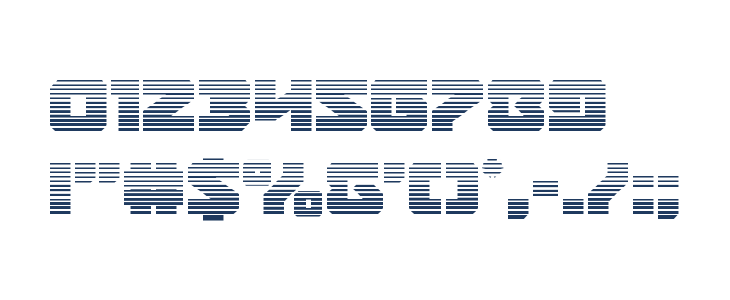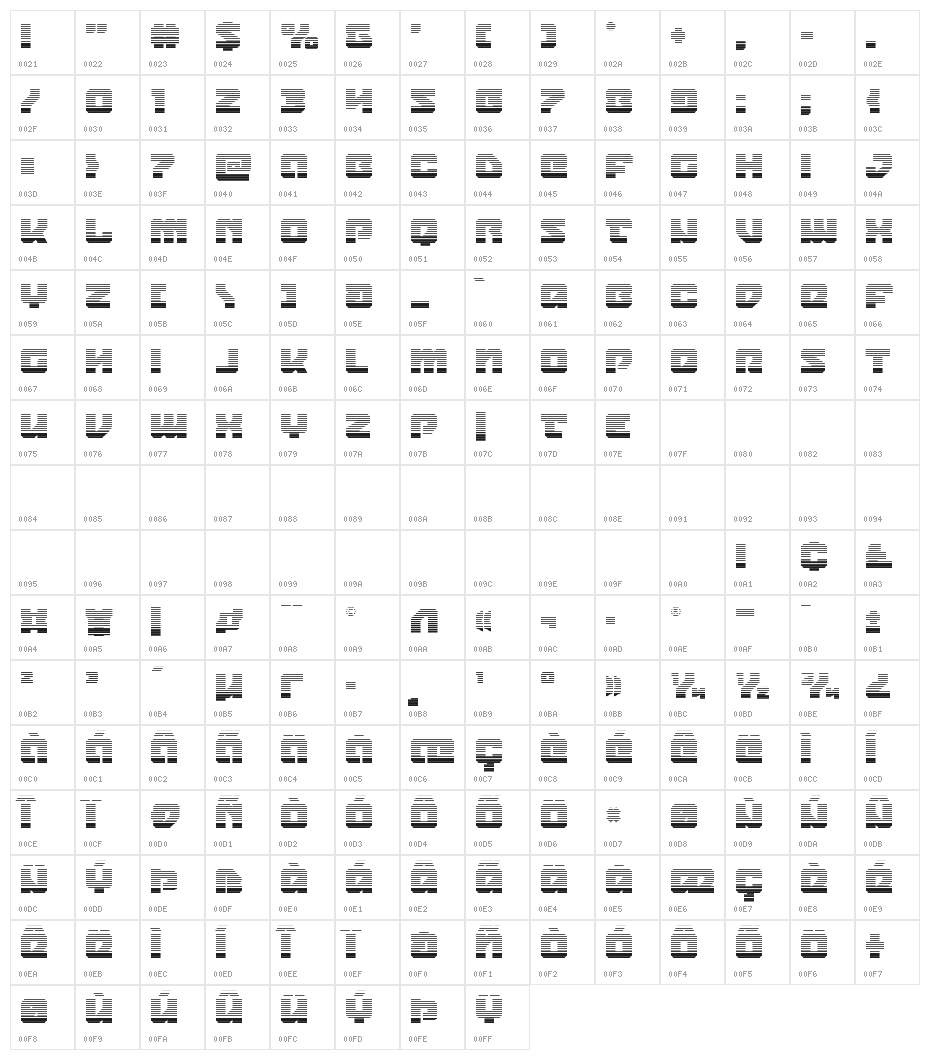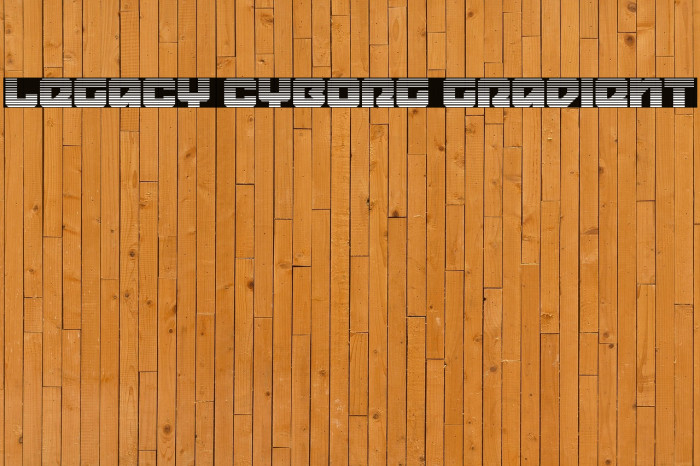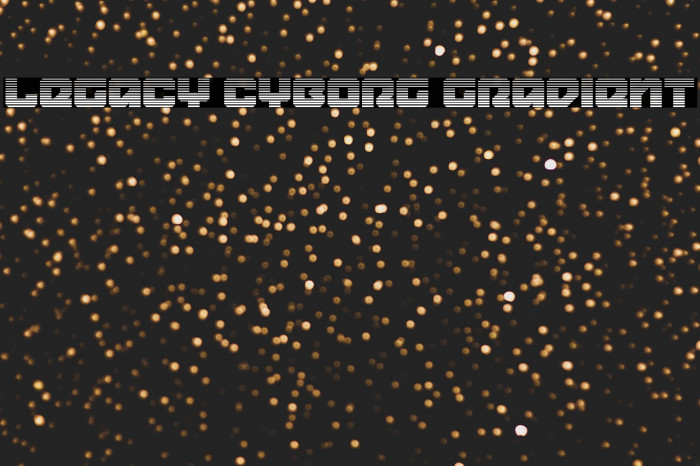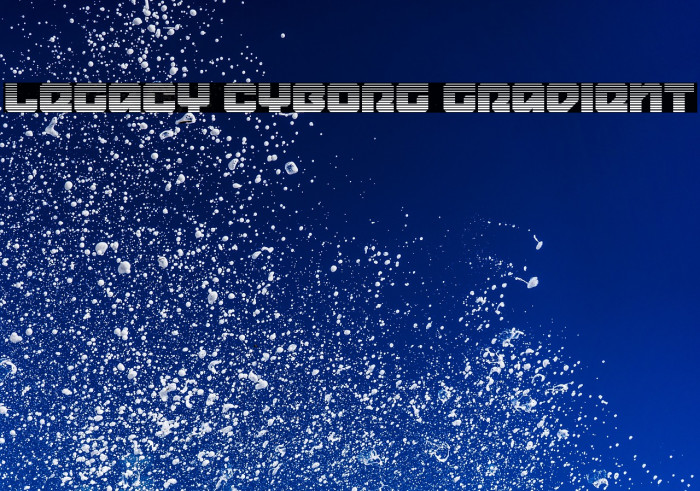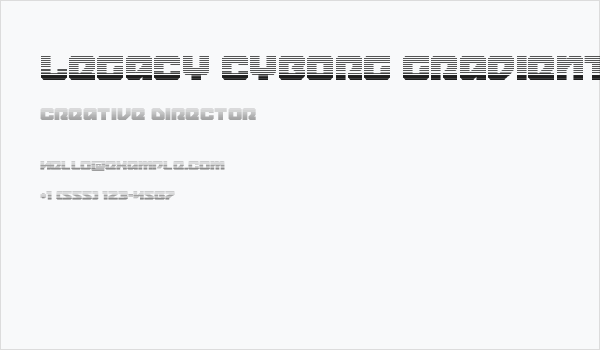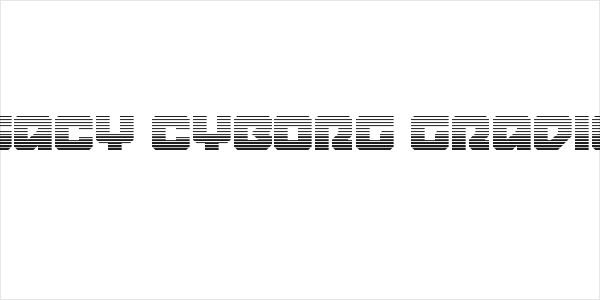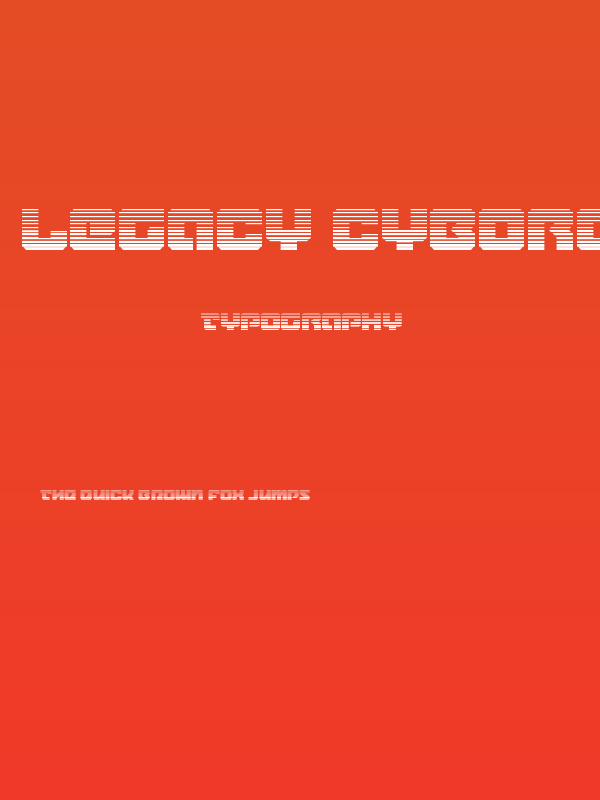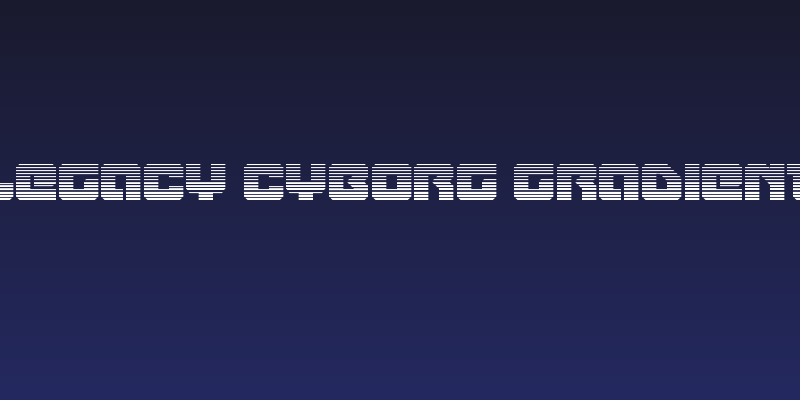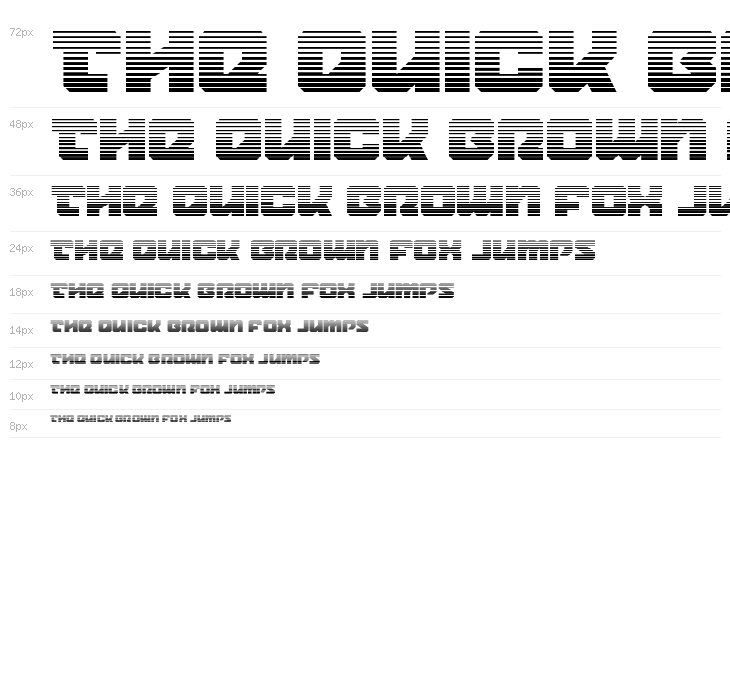
Legacy Cyborg Gradient Font
Legacy Cyborg Gradient Description
This font features a futuristic and digital aesthetic, characterized by its horizontal line patterns that create a gradient effect across each character. The design is bold and geometric, with a strong emphasis on horizontal alignment, giving it a mechanical and robotic feel. The uppercase and lowercase letters maintain a consistent style, while the numbers and special characters are equally distinctive, making it suitable for tech-themed projects. The overall appearance is striking and modern, with a unique visual rhythm created by the line patterns.
| Proposed Projects | Ideal for tech-related branding, sci-fi posters, video game titles, and digital media projects. |